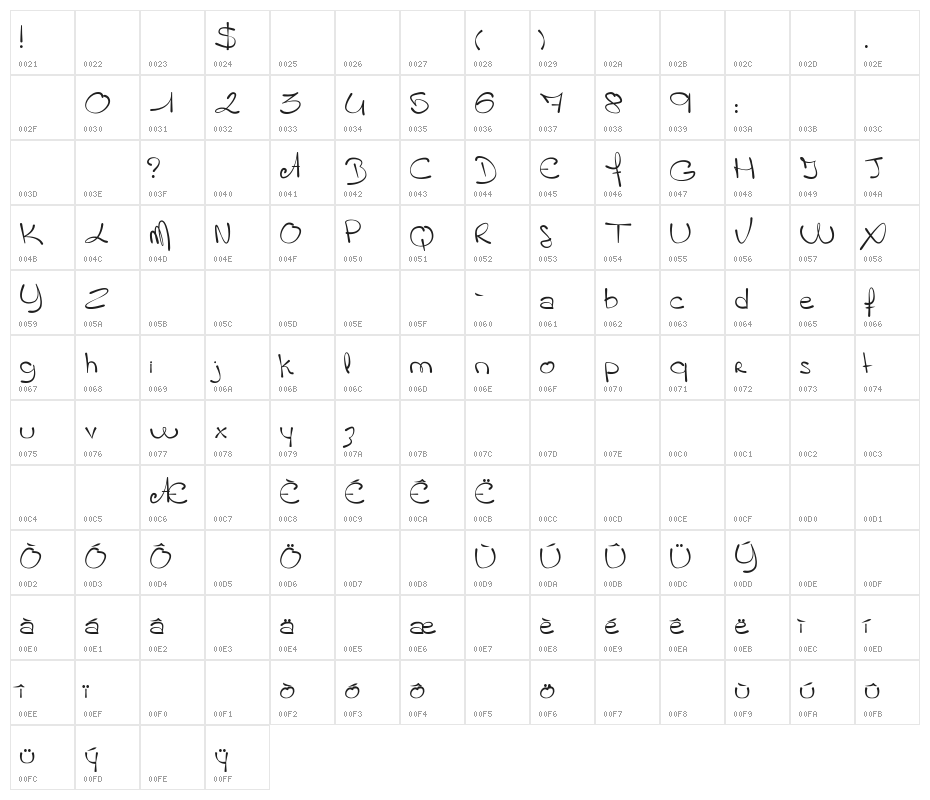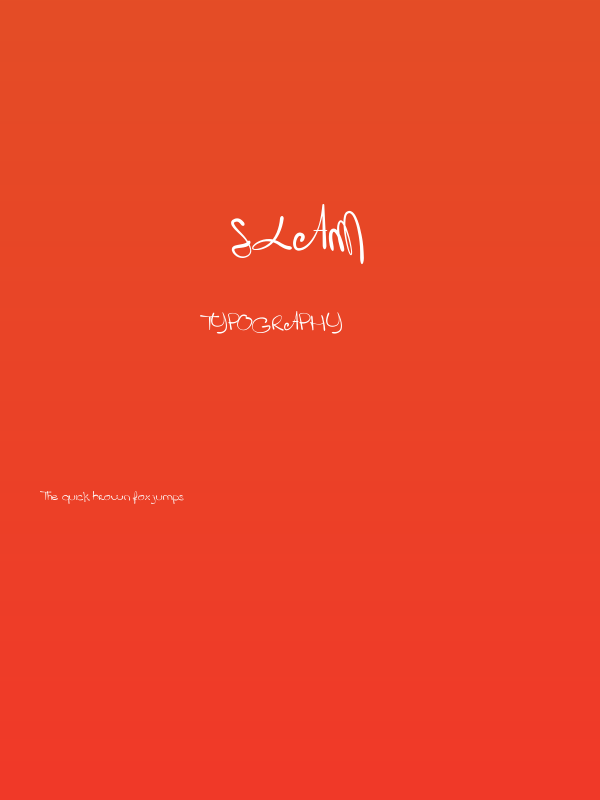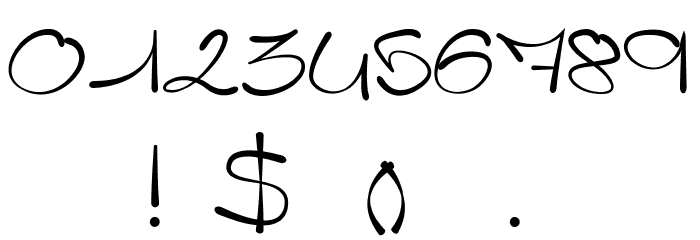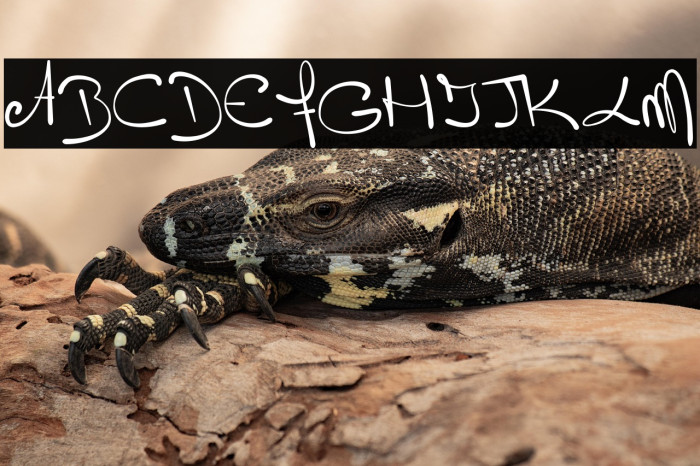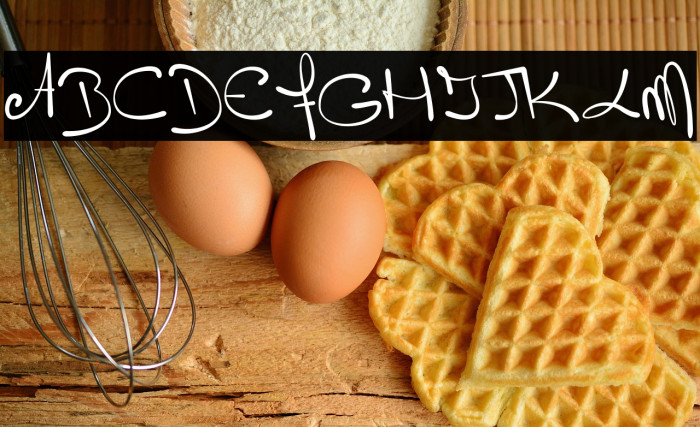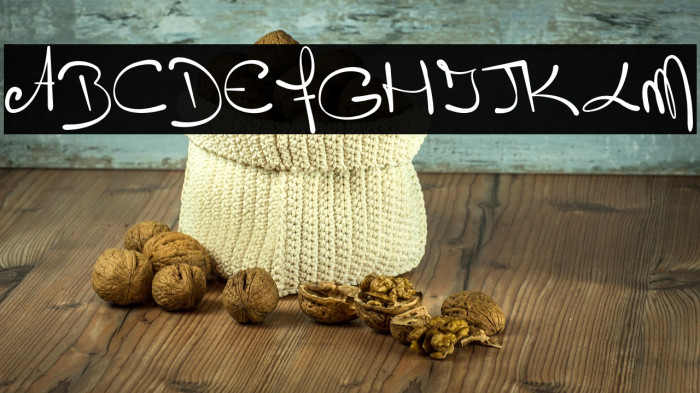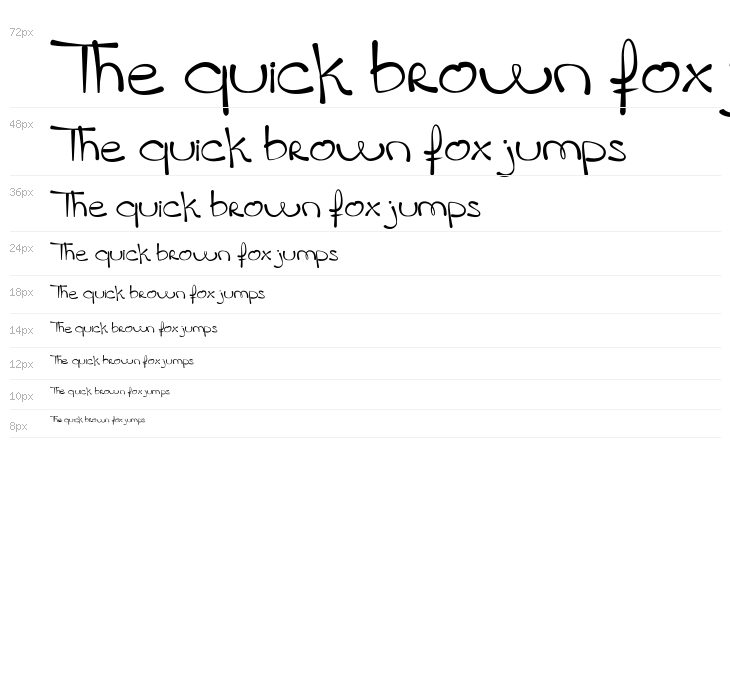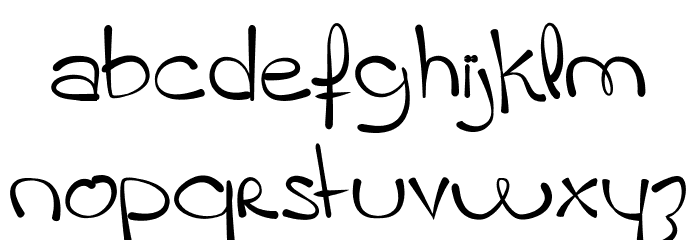
Slam Font
Slam Description
This playful and whimsical font features a handwritten style with a unique flair. The characters are crafted with a casual, flowing script that gives off a friendly and approachable vibe. Each letter has a distinct personality, with varying stroke thickness and playful loops that add to its charm. The numbers and special characters maintain this lively style, making it suitable for creative and informal projects. The font's overall appearance is both modern and artistic, perfect for capturing attention in a fun and engaging way.
| Overall Style | Whimsical, Artistic |
| Proposed Projects | Ideal for greeting cards, children's books, playful branding, and creative posters. |